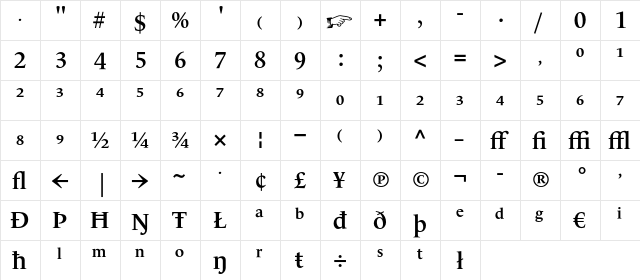
LeMonde Livre Expert SemiBold Font Preview
LeMonde Livre Expert SemiBold
Design Context for LeMonde Livre Expert Typeface
LeMonde Livre Expert offers clean, dependable letterforms without strong stylistic allegiance, making it a practical choice for designers who need flexibility. The heavy weight commands attention and anchors typographic hierarchies.
Pro Tip: Use LeMonde Livre Expert in both headline and body roles to test its range before committing to a single application.